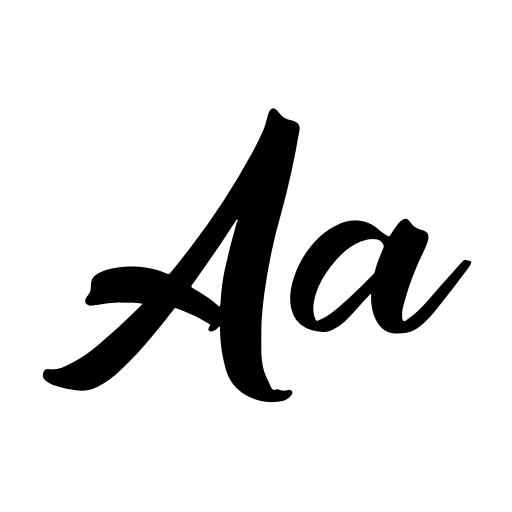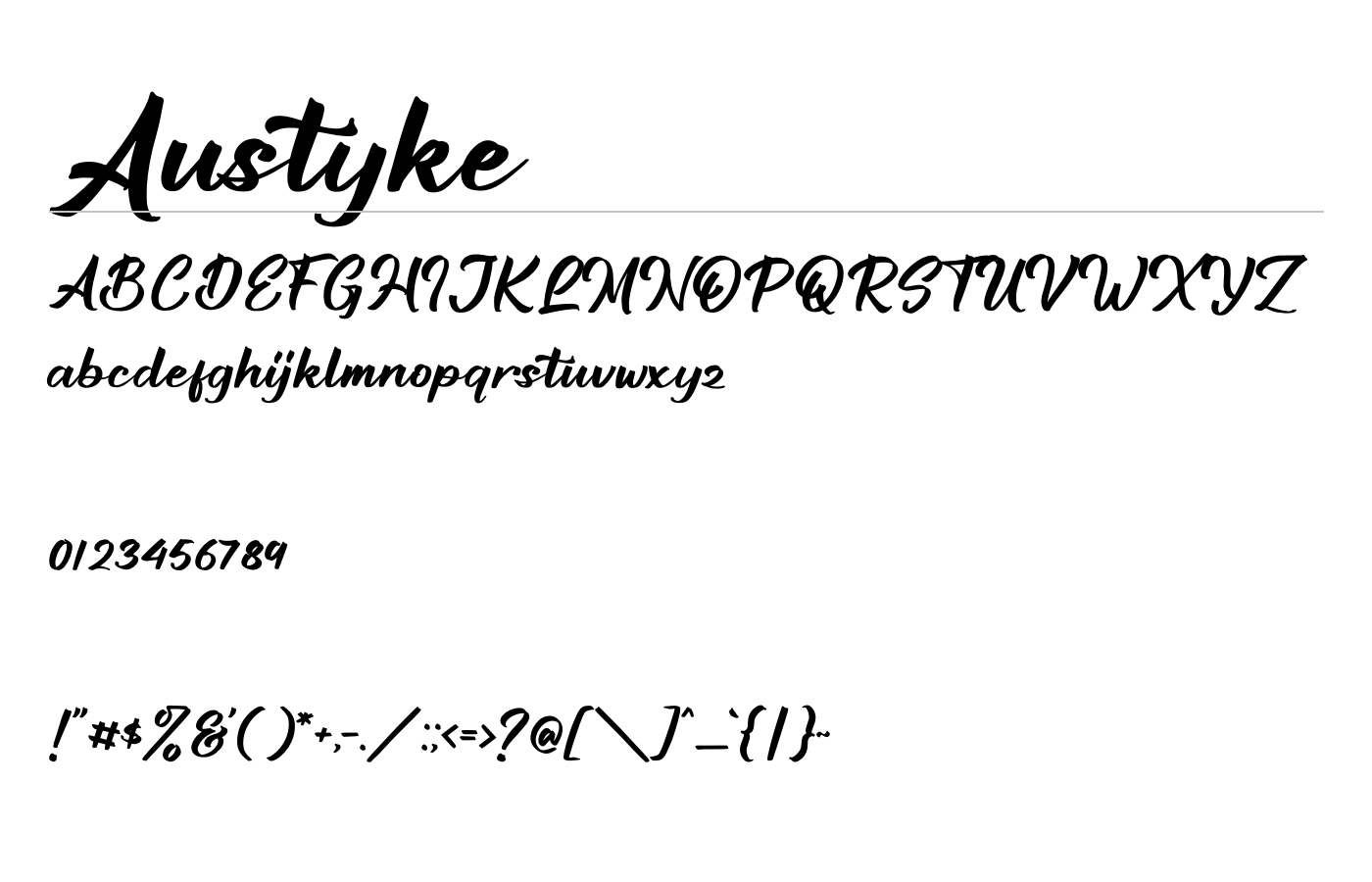
Austyke is an elegant script font with a smooth, flowing style that features moderate contrast and a confident, brush-like stroke. Its letterforms blend traditional cursive charm with modern readability, making it ideal for creative branding, invitations, and stylish headlines. This font’s playful yet refined personality suits fashion, lifestyle, and artistic projects where a personal and dynamic touch is desired.
Austyke Font
About Austyke Font
| Font family | Austyke Font |
| Designer | Nanang Jamaludin |